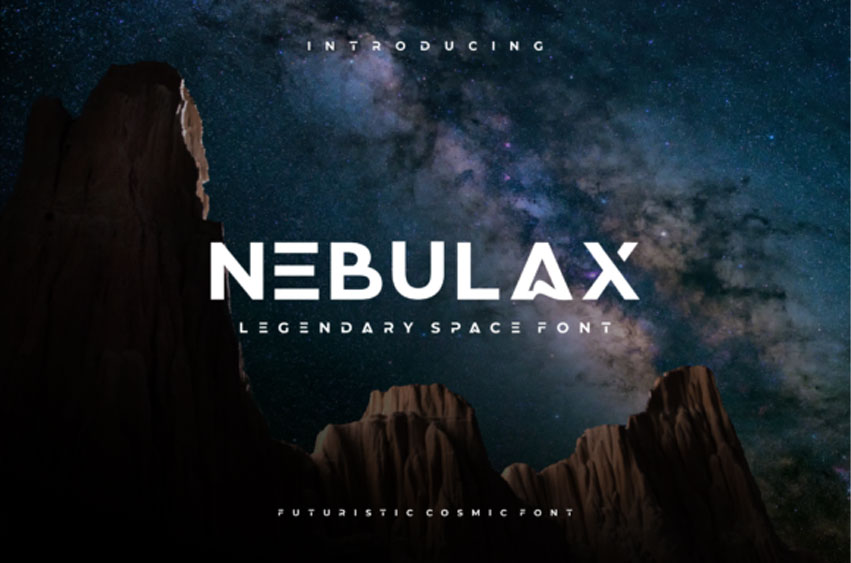
Nebulax Font
Nebulax Font is a cool, bold and modern display font.
This font is ideal for writing web designs, business cards, or pretty much anything else that requires a unique touch.